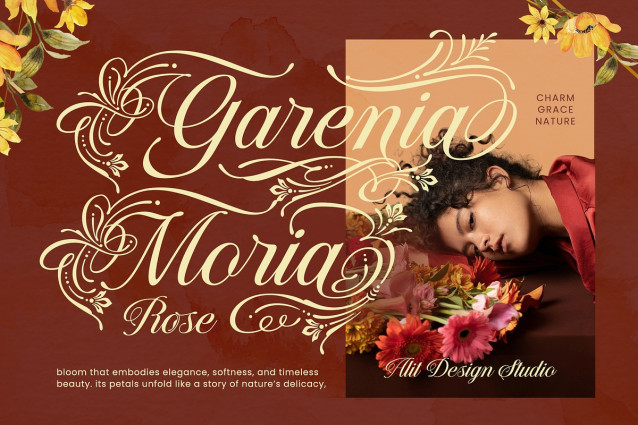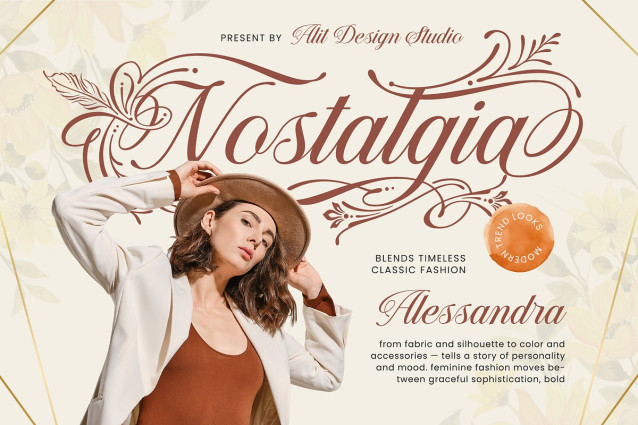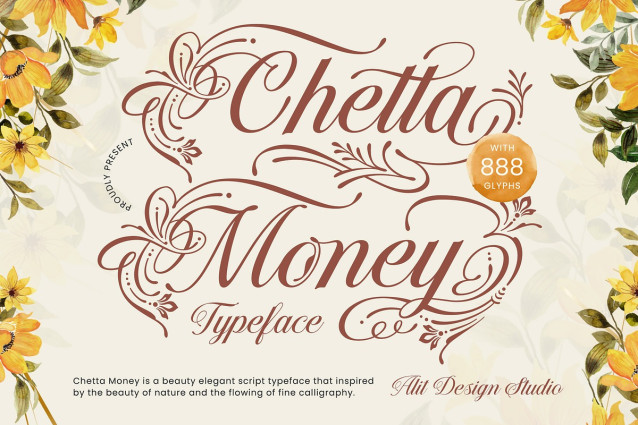
Chetta Money Font
Chetta Money Font, a breathtakingly beautiful script typeface from Alit Design Studio. Inspired by the delicate flow of fine calligraphy and the abstract beauty of the natural world, Chetta Money brings a touch of timeless sophistication and organic charm to any creative project.
From the gentle curve of a petal to the graceful sweep of a vine, every character in Chetta Money is crafted with meticulous attention to detail. Its fluid lines and ornate flourishes move with a life of their own, creating a perfect harmony between classic lettering and modern design.
What truly sets Chetta Money apart is its incredible versatility. With an extensive collection of over 888 glyphs, this typeface offers an unparalleled level of creative freedom. Explore a treasure trove of stylistic alternates, from subtle swashes to elaborate, nature-inspired decorations. Whether you need a simple, elegant initial or a show-stopping headline, Chetta Money provides the perfect flourish for every occasion.